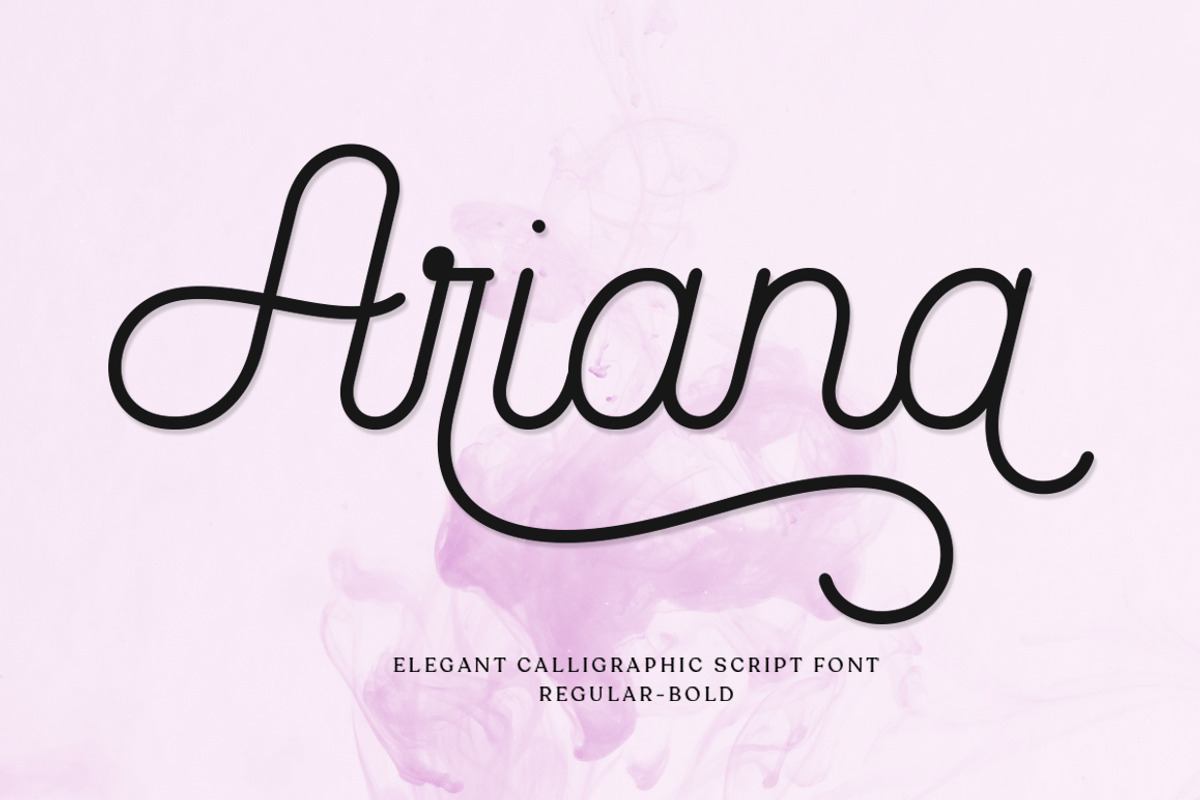
Ariana Script is an elegant monoline script typeface designed to add a casual chic calligraphic touch to various design projects. It's particularly well-suited for applications such as logos, wedding invitations, greeting cards, posters, and more.
Design Style: Ariana Script features a modern handwritten script style with a thin, well-balanced appearance, exuding a vintage charm.
OpenType Features: The font is built with OpenType features, including start and end swashes, alternative characters for both lowercase and uppercase letters, ligatures, and more than 400 glyphs. These features enhance the font's versatility and allow for creative customization.
PUA Encoding: Ariana Script is PUA encoded, meaning all glyphs and swashes are easily accessible, even without specialized design software.
Incorporating Ariana Script into your design projects can add a touch of elegance and personalization, enhancing the overall aesthetic appeal